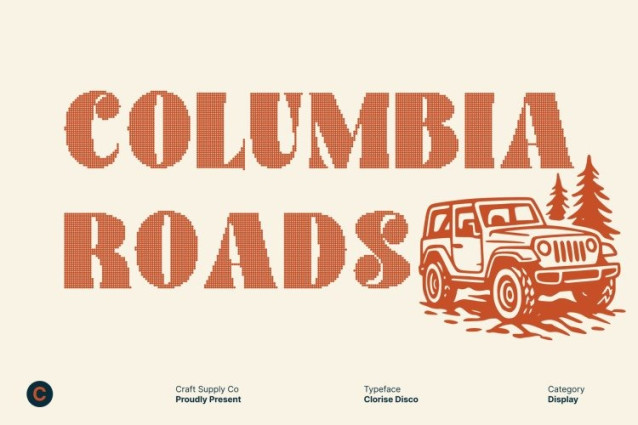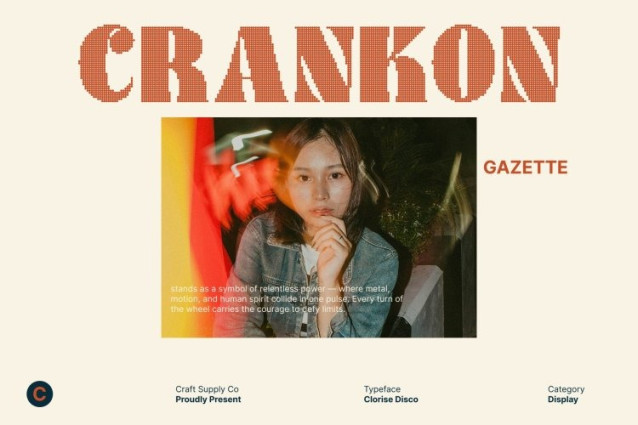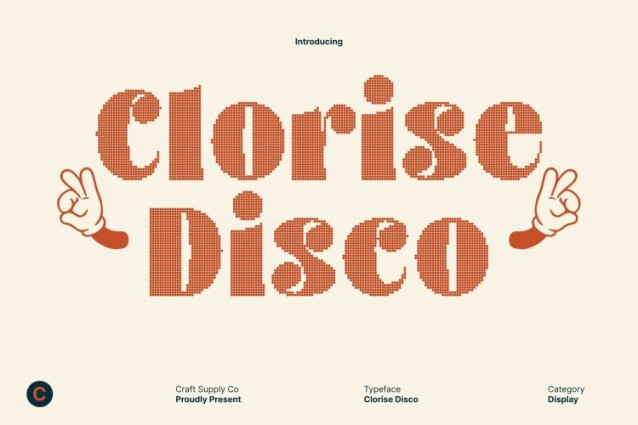
Clorise Disco Regular Font
Clorise Disco Regular Font is a retro-inspired serif font that captures the joyful spirit of the 1970s while infusing it with a contemporary twist. Each letter shines with a sense of rhythm and movement, bringing back the groovy elegance of the disco era. With its bold serifs and flowing curves, delivers a nostalgic charm that feels refreshingly modern.
Classic 70s Aesthetic Meets Modern Energy
Designed for designers who love the look of vintage typography but want something updated, bridges eras seamlessly. Its structured letterforms carry the confidence of classic serif design, while the subtle disco-inspired shimmer gives it a playful and energetic personality. This balance makes it ideal for projects that want to celebrate the past while staying stylishly current.
Perfect for Party and Celebration Themes
This font is the ultimate type choice for party graphics, event posters, and joyful branding. Its lively shapes and radiant details make headlines pop and logos stand out with infectious positivity. Whether for music events, fashion campaigns, or festive packaging, this font brings a spotlight-ready sparkle to every design.
Versatile for Expressive and Joyful Creations
From bold titles to expressive layouts, this font adapts beautifully across creative applications. Its retro flair adds character, while its modern refinement ensures readability and sophistication. Use This font to create designs that groove with personality, charm, and undeniable style.